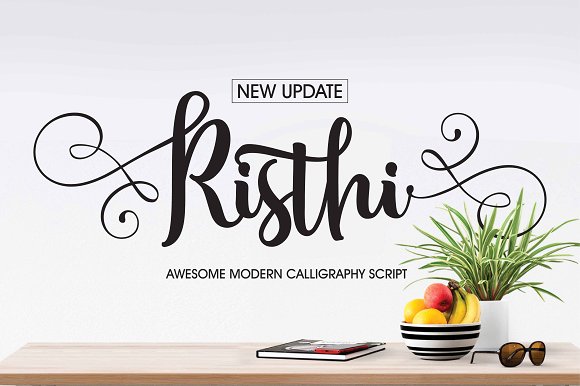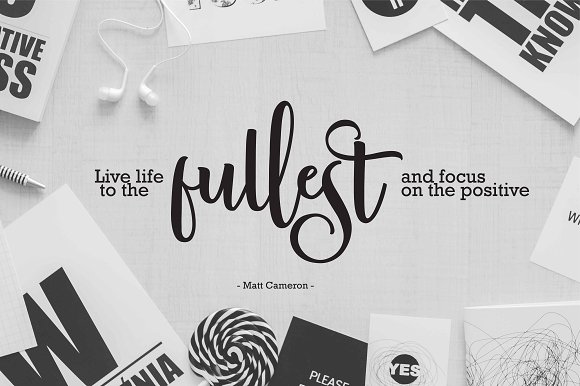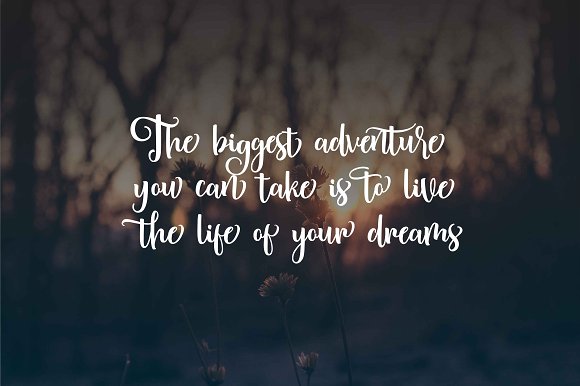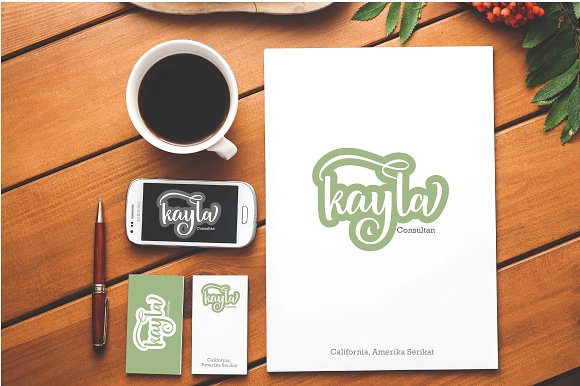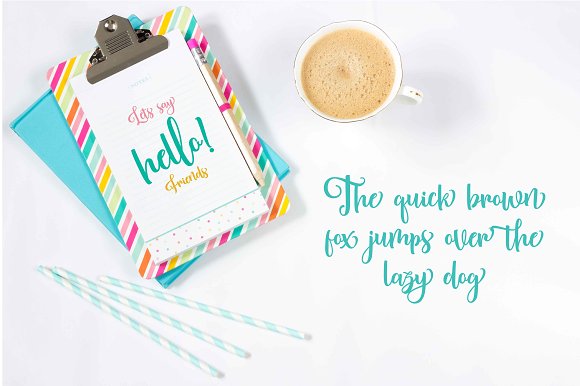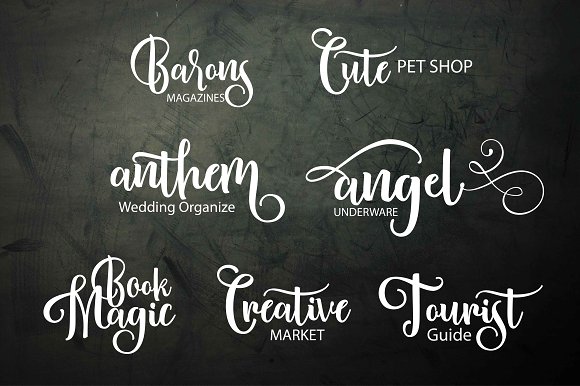
HomeScript FontsRisthi Font Script Fonts Risthi Font FacebookXPinterestWhatsApp Risthi Font Poster 2 Risthi Font Poster 3 Risthi Font Poster 4 Risthi Font Poster 5 Risthi Font Poster 6 About Risthi Font Risthi is a modern looking handwritten script. DOWNLOAD ON CREATIVE FABRICAThis font is sold and delivered by Creative Fabrica. Font Canyon may earn a commission if you buy through this link. People also explored Baud Rate Songtime Font Hazelnut Font All Americans Font Alocasia Font Anabella Font Valentine Girls Font Spur Rust Floral Font 335 0 TagsRisthi Font Previous articleRicca FontNext articleRomero Font LEAVE A REPLY Cancel reply Comment: Please enter your comment! Name:* Please enter your name here Email:* You have entered an incorrect email address! Please enter your email address here Website: Save my name, email, and website in this browser for the next time I comment. Personal Use Free Hatchill Personal Use Free Read more about this font Still Time Personal Use Free Read more about this font Single Sleeve Personal Use Free Read more about this font Deling Personal Use Free Read more about this font BLOG 5 Fonts That Will Dominate Design Trends in 2026 5 Fonts for 2026 That Will Dominate Design Trends Typography plays a critical role in visual communication, and as we look ahead to 2026, it’s... Modern Sans-Serif Fonts That Brands Love in 2025 Free vs Paid Fonts: Why Investing in Premium Fonts Is Worth It Fonts That Capture the Spirit of New York City